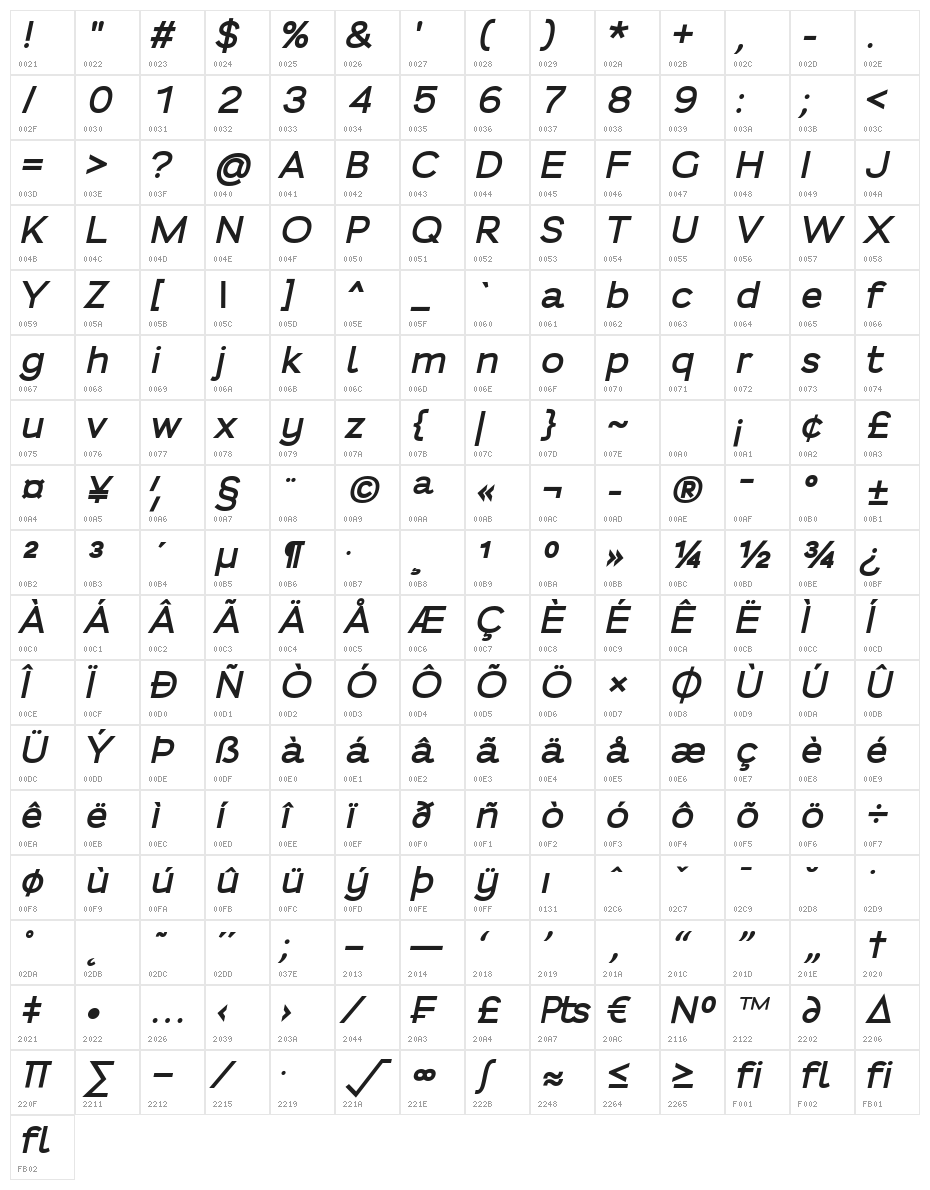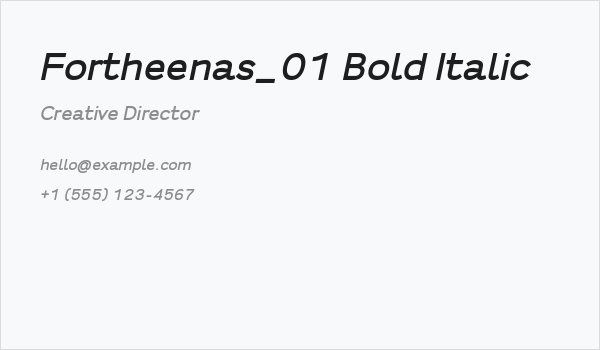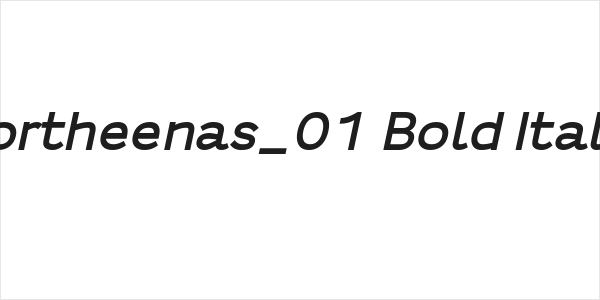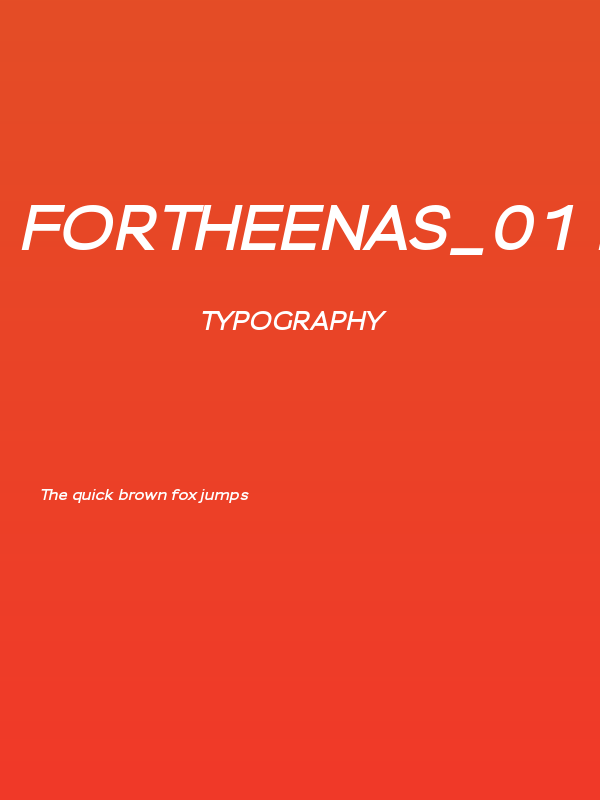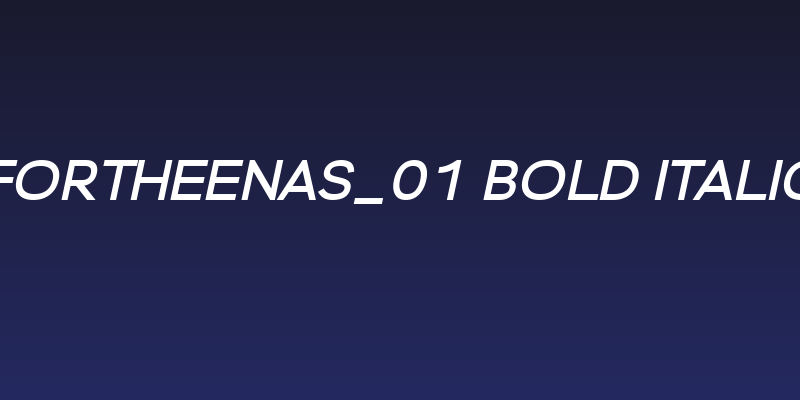
Fortheenas_01 Bold Italic Font
Fortheenas_01 Bold Italic Description
This typeface exhibits a modern and sleek design with a bold and italicized style. The characters are slightly slanted, giving a dynamic and forward-moving appearance. The strokes are consistent in weight, providing a uniform look across all characters. The uppercase letters are tall and commanding, while the lowercase letters maintain a balanced proportion. The numerals are clear and easily distinguishable, making them suitable for various applications. Special characters are well-integrated, maintaining the overall aesthetic of the typeface. The font's clean lines and contemporary feel make it versatile for both digital and print media.
| Use Case | Headlines, Logos, Digital Media |
| Proposed Projects | Ideal for branding, advertising, headlines, and digital media where a modern and bold statement is needed. |